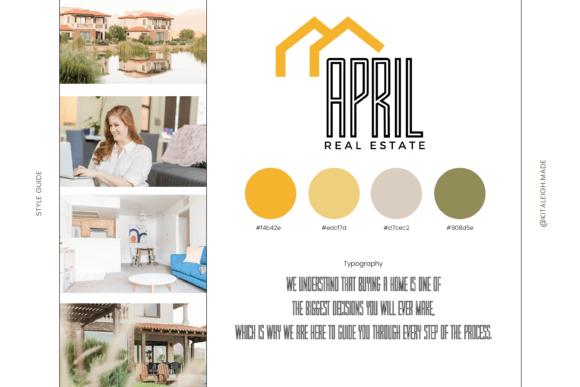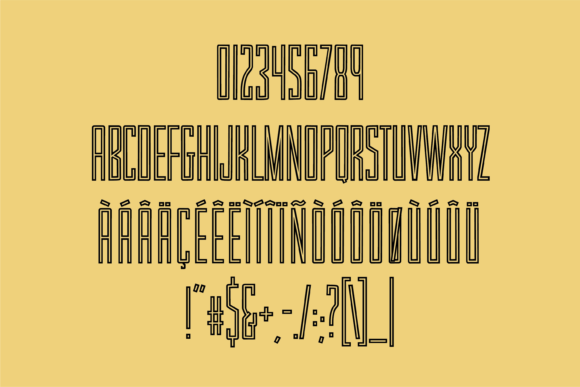
Discover the Bold Elegance of Harrison Font
Are you on the hunt for a font that makes a statement? A sleek, hollow, tall sans serif font that can elevate your branding, website, or social media presence? Look no further than Harrison Font. This distinctive block-style typeface is designed to turn heads, offering a unique blend of refinement and creativity that’s perfect for designers and crafters alike.
The Unique Appeal of Harrison Font
Harrison Font boasts a hollow sans serif and block design that sets it apart from more traditional typefaces. Its sleek lines and tall stature give it a modern, sophisticated look that’s ideal for projects that demand a bit of elegance. Whether you’re working on a luxury brand, a creative startup, or simply want to add some visual interest to your website or social media graphics, Harrison Font delivers.
One of the standout features of Harrison Font is its versatility. It’s a font that can easily shift between refined and fun, making it suitable for a wide range of projects. For branding, it offers a level of sophistication that’s hard to match. For websites or social media graphics, it can add a playful, creative touch that’s sure to engage your audience.
What You Get with Harrison Font
When you choose Harrison Font for your project, you’re not just getting a stylish typeface; you’re getting a comprehensive set of features that make it easy to use and versatile. Here are just a few of the benefits:
- Complete Character Set: Harrison Font comes with a complete character set, ensuring you have access to all the letters, numbers, and punctuation you need to bring your project to life.
- Multilingual Support: With multilingual support, you can use Harrison Font in a variety of languages, making it a great choice for international brands or projects with a global audience.
Using Harrison Font in Your Projects
So, how can you use Harrison Font to elevate your projects? Here are a few ideas to get you started:
- Branding: Use Harrison Font for your logo, business cards, or letterhead to add a touch of sophistication and elegance.
- Websites: Add Harrison Font to your website for a modern, eye-catching look that’s sure to engage your visitors.
- Social Media Graphics: Stand out on social media with bold, eye-catching graphics featuring Harrison Font.
Why Choose Harrison Font?
With so many fonts to choose from, why should you opt for Harrison Font? Here are a few compelling reasons:
- Unique Design: Harrison Font offers a unique design that’s sure to set you apart from the competition.
- Versatility: Whether you’re going for a refined look or something more playful, Harrison Font adapts easily.
- Comprehensive Features: With a complete character set and multilingual support, Harrison Font has everything you need to bring your project to life.
If you’re searching for a font that combines sleek lines, a tall stature, and a unique hollow sans serif and block design, Harrison Font is an excellent choice. Its versatility, comprehensive features, and distinctive look make it an ideal option for designers and crafters looking to make a bold statement. Whether you’re working on branding, a website, or social media graphics, Harrison Font is sure to deliver.